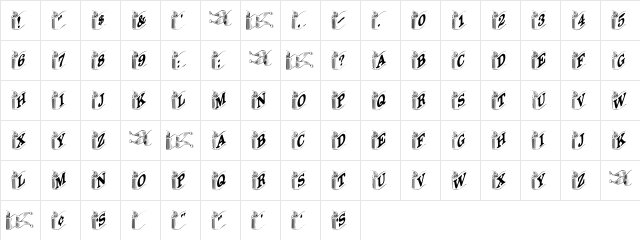
FC Ribbons Normal
Design Context for FC Ribbons Typeface
FC Ribbons is a composed and adaptable typeface that performs quietly and consistently across a wide range of design contexts.